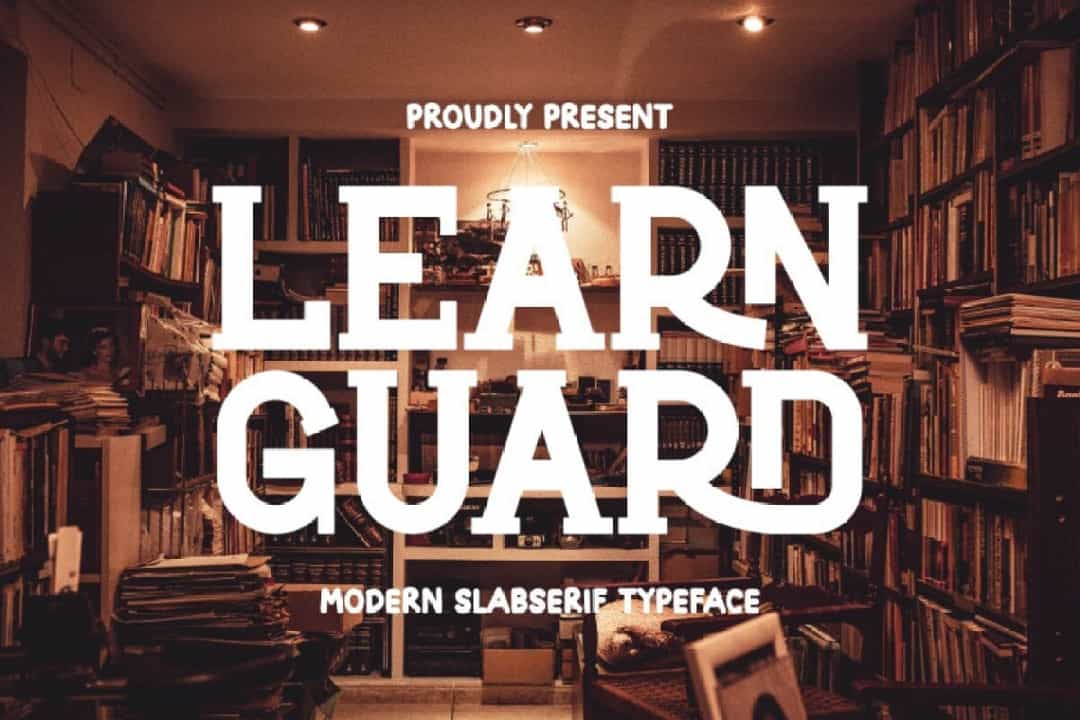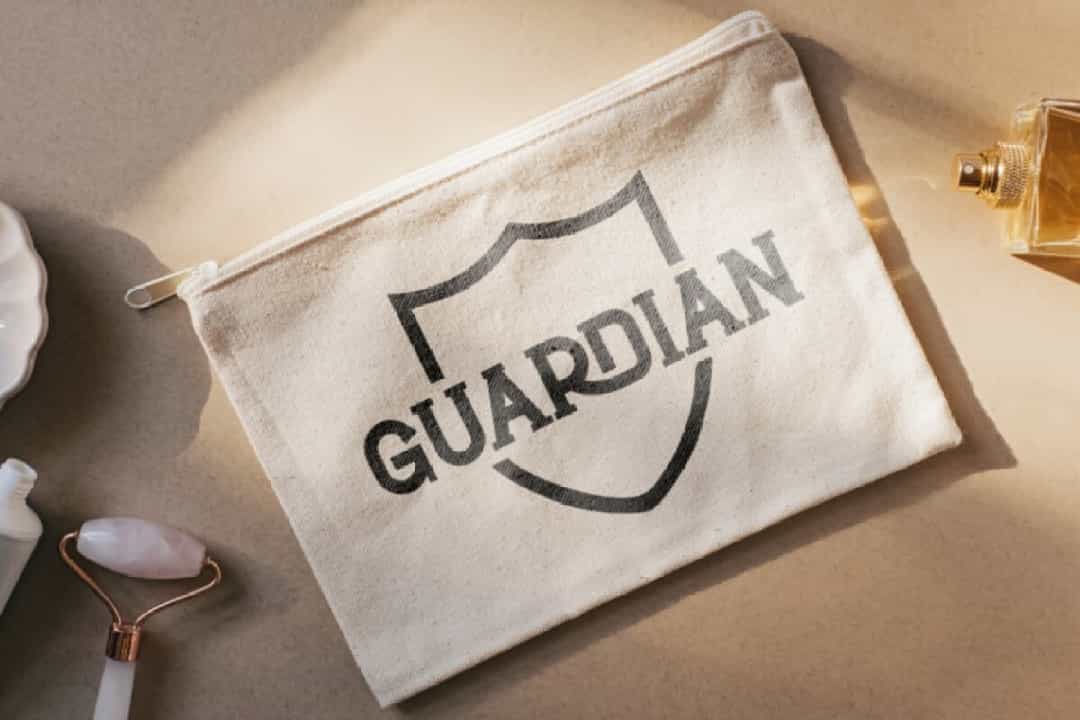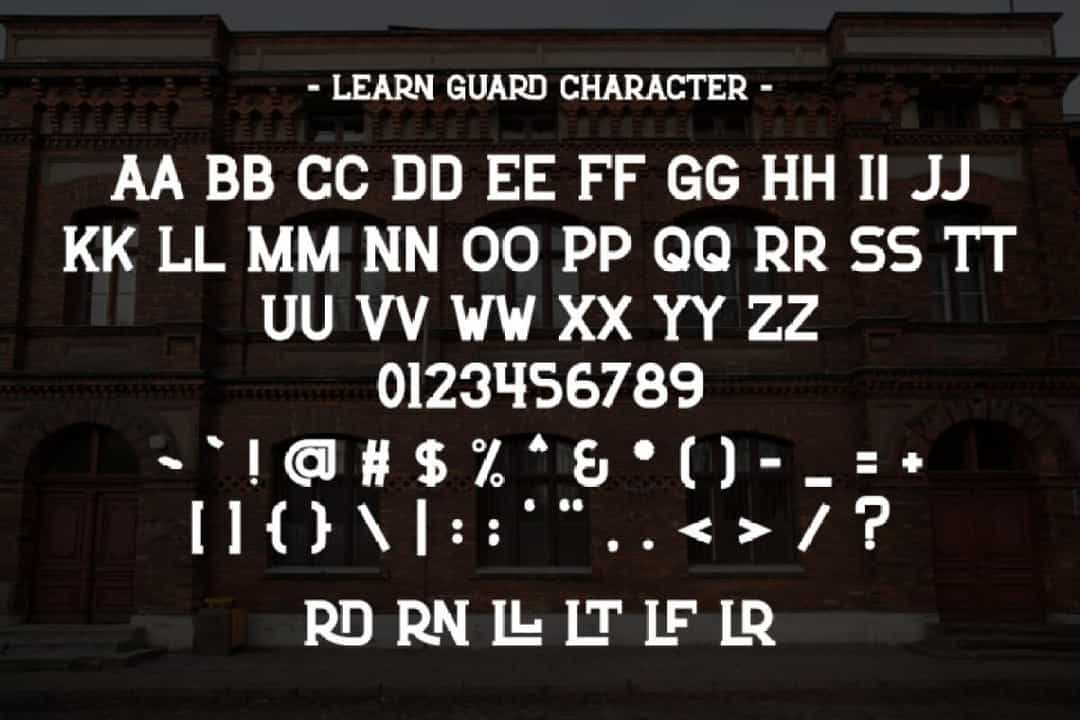
Learn Guard is an elegant yet bold slab serif font, perfect for creating elegant wedding invitations, gorgeous stationary items, captivating social posts and so much more. You will fall in love with its amazing versatility as you design stunning invitations, stationary products or posts on social networks with its help!